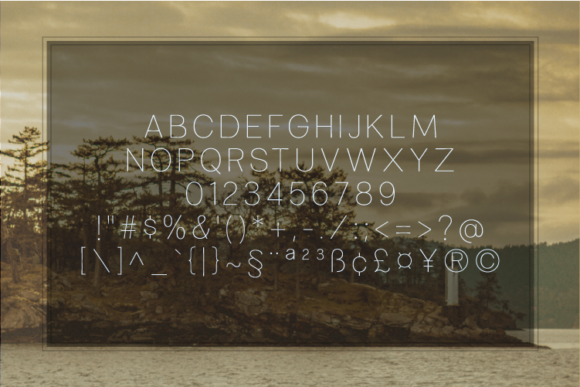
Introduction to Jungland Thin Font
Have you ever been stuck on a design project, struggling to find the perfect font to bring your idea to life? You’re scrolling through design resources, searching for that one font that screams ‘creativity’ and ‘high quality.’ Suddenly, you stumble upon Jungland Thin Font, and your design vision starts to take shape.
Jungland Thin Font is a geometric font family that exudes warmth and engagement, making it perfect for headlines, quotes, and short text. With its subtle imperfections and human tone, this font is a valuable design resource that can elevate your creative project to the next level.
Key Features of Jungland Thin Font
- Unique, high-quality design for creative projects, perfect for a modern and elegant look.
- Features a transparent background, allowing for seamless integration with various backgrounds and designs.
- High-resolution font, ideal for print and digital applications, with a resolution of 300 DPI.
- Suitable for use in various design contexts, including logos, typography, and creative graphics.
Honest Review: Jungland Thin Font
As a designer, I’m always on the lookout for high-quality design resources to elevate my creative projects. Recently, I came across the Jungland Thin Font, and I must say, it’s been a great addition to my toolkit.
What works well with the Jungland Thin Font is its elegant and refined aesthetic. ✨ It’s perfect for projects that require a touch of sophistication and minimalism. The font’s clean lines and subtle curves make it an excellent choice for logos, typography, and even digital interfaces.
Some of the key features that I appreciate about the Jungland Thin Font include:
- High-quality design that’s perfect for print and digital use
- Transparent background, allowing for easy customization and layering
However, I do have to mention that the Jungland Thin Font may not be the best choice for projects that require bold or dramatic typography. ⚠️ It’s a more delicate font that’s better suited for subtle and understated designs.
Overall, I’m impressed with the Jungland Thin Font and would definitely recommend it to designers who are looking for a high-quality, elegant font for their creative projects.
The Jungland Thin Font is a high-quality design resource ideal for creative projects. This free download is perfect for adding a touch of elegance to your designs.
Use the Jungland Thin Font with a transparent background to create a clean and minimalist design. Experiment with different font sizes and styles to add visual interest to your design.
The Jungland Thin Font is ideal for use in logos, branding materials, and other design projects where a touch of elegance is required. It’s also great for use with images and graphics to create a cohesive design.